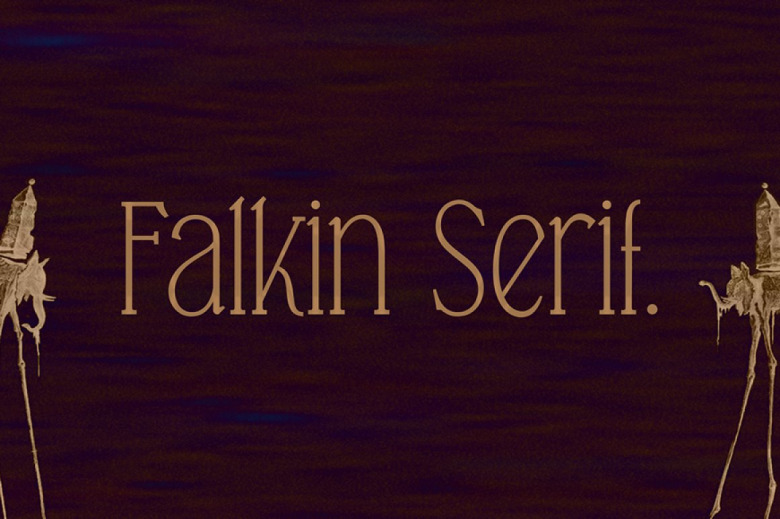
Falkin Font
Falkin Font High quality serif font with multilingual support and a large number of special characters. Designed by Måns Grebäck, this hand-crafted typeface works great in logotypes and for titles and slogans.
Falkin Serif Font